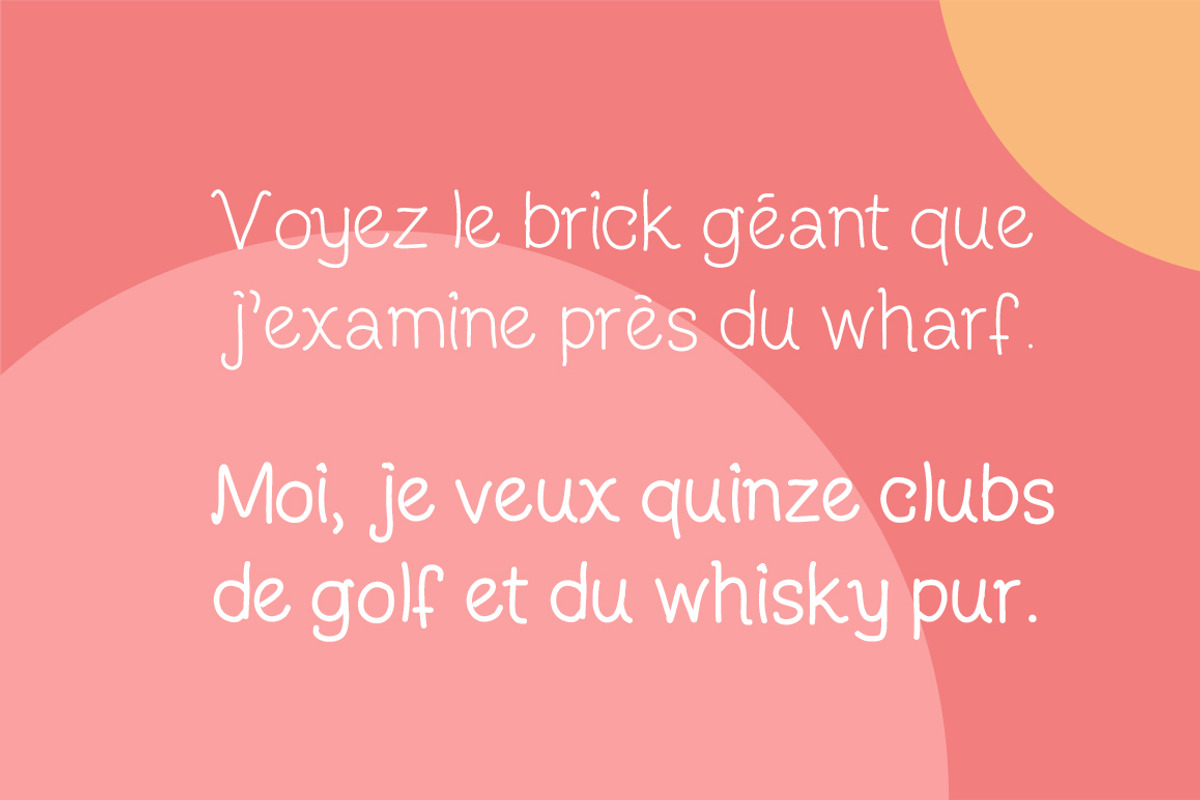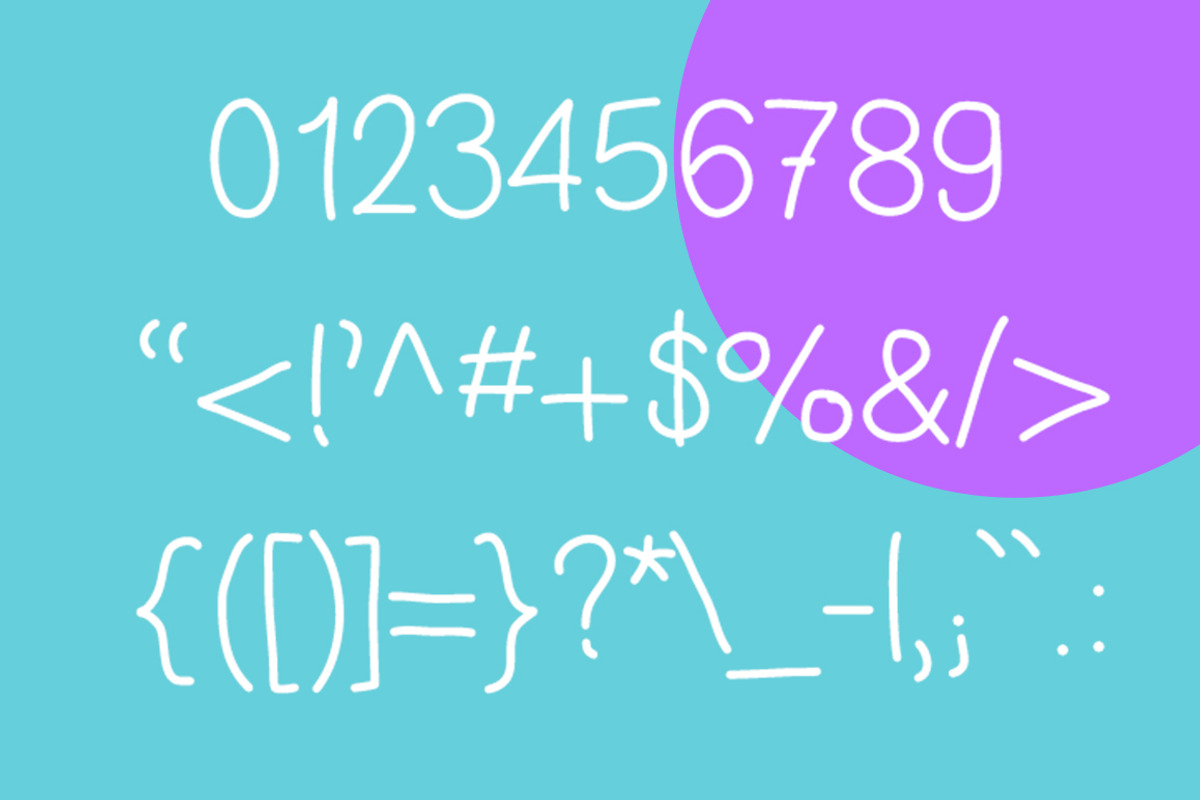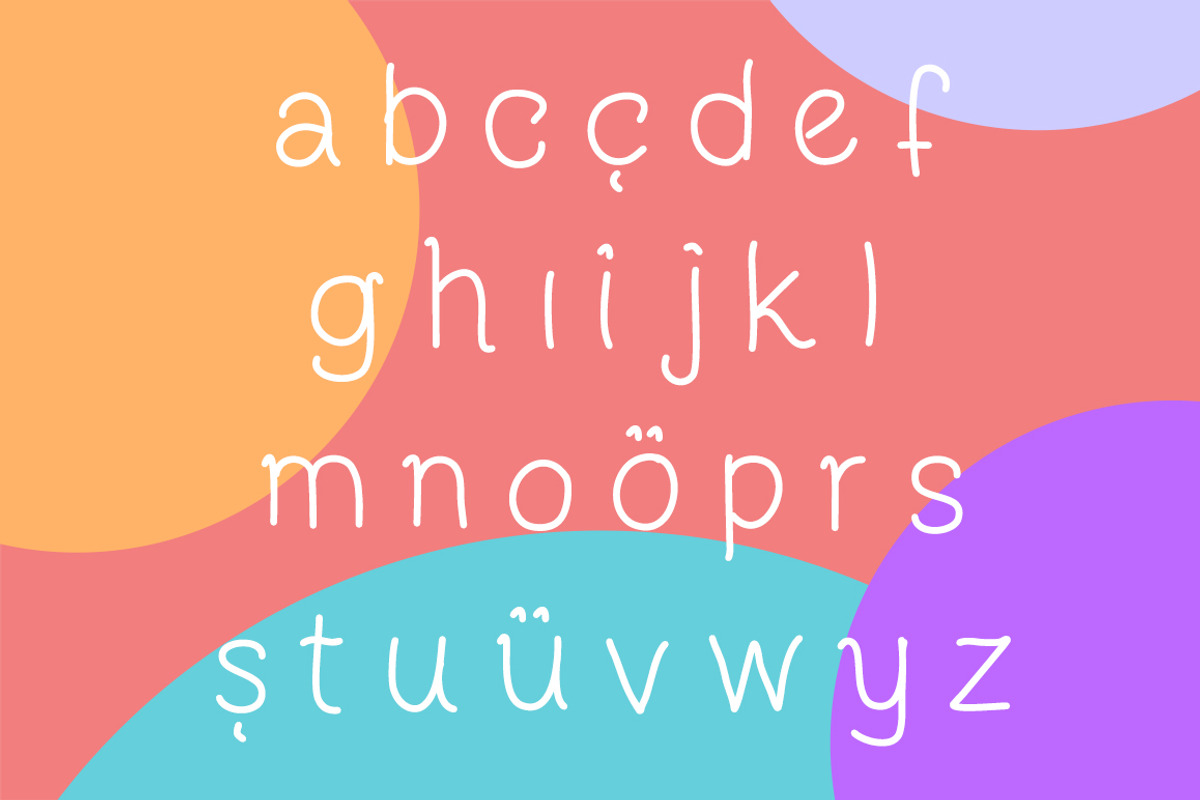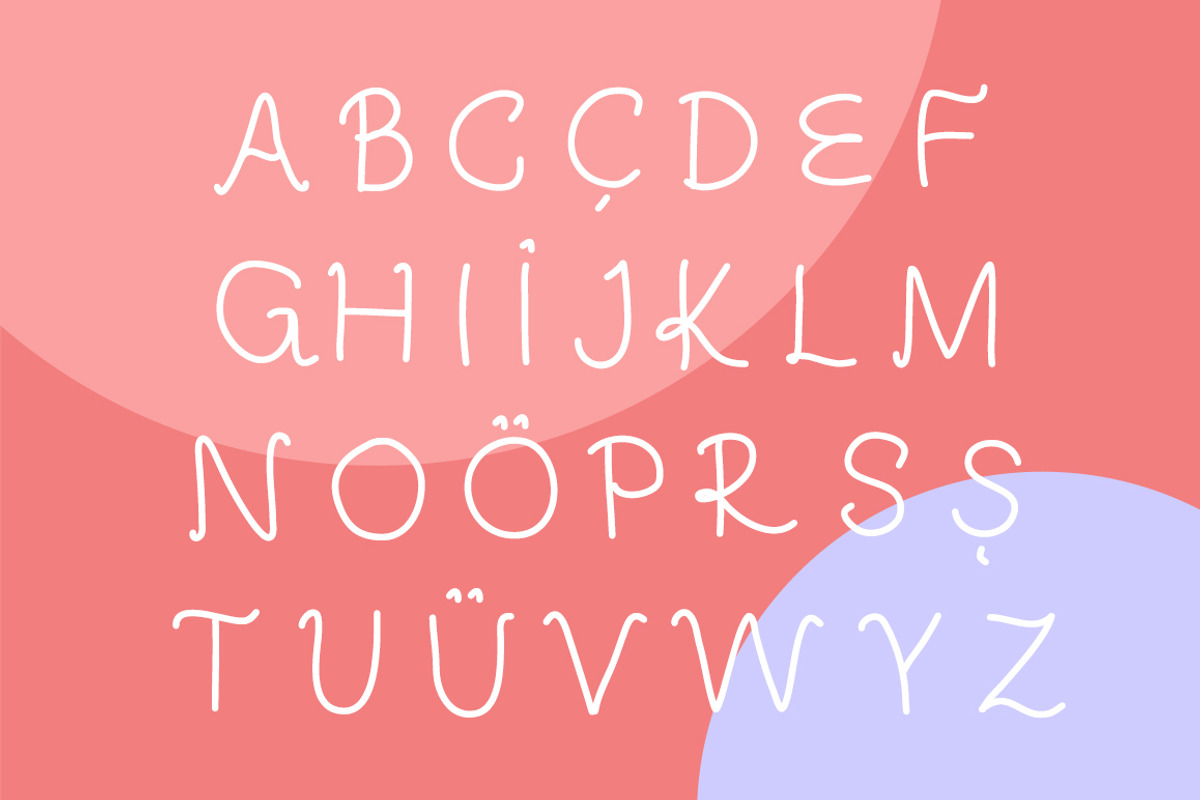
Le Parisien - 2 font style
Le Parisien - 2 font style by Idil Keysan is a font selected for branding, posters, packaging, typography.
- Le Parisien is a handwritten typeface that comes in both uppercase and lowercase styles.
Why Le Parisien - 2 font style is worth a look
Le Parisien - 2 font style by Idil Keysan fits naturally into Branding, posters, packaging, typography.